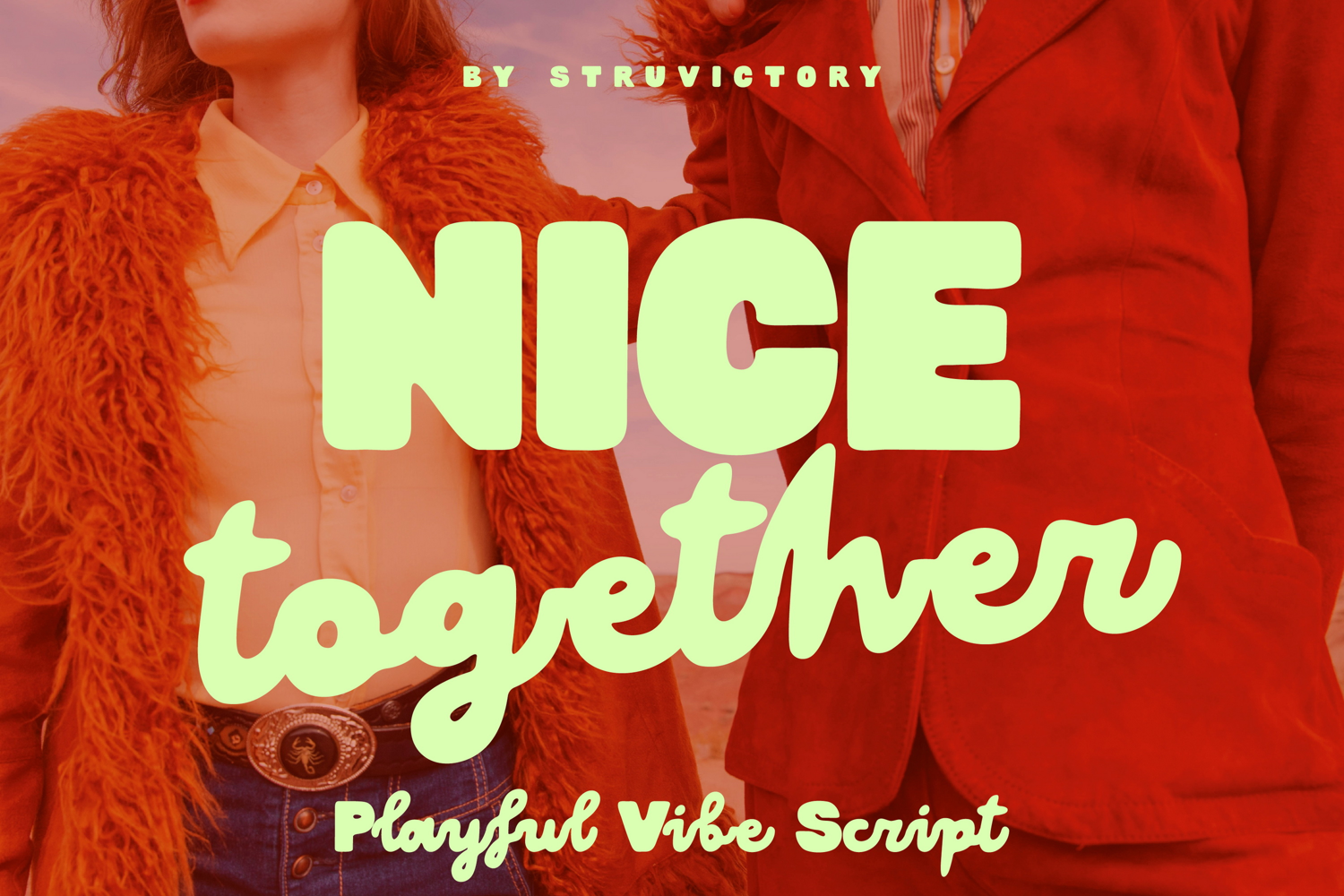
Nice Together Playful Vibe Script
NiceTogetherScript
Nice Together is a playful handwritten font with two matching styles: a chunky all-caps sans and a soft handwritten script designed in lowercase. This contrast creates a dynamic, trendy look that’s full of personality — bold but friendly, fun but clean. Perfect for eye-catching branding, social posts, posters, clothing tags, stickers, menu design and anything that needs a bit of charm and attitude.
Nice Together Script supports the most popular latin-based languages.